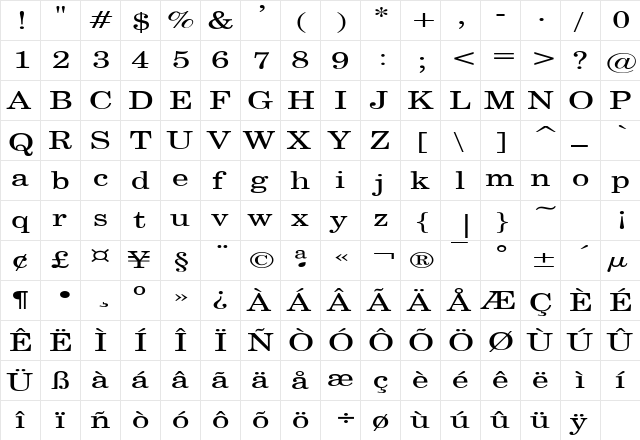
CenturySWExtended Regular
Design Context for CenturySWExtended Typeface
CenturySWExtended offers clean, dependable letterforms without strong stylistic allegiance, making it a practical choice for designers who need flexibility.